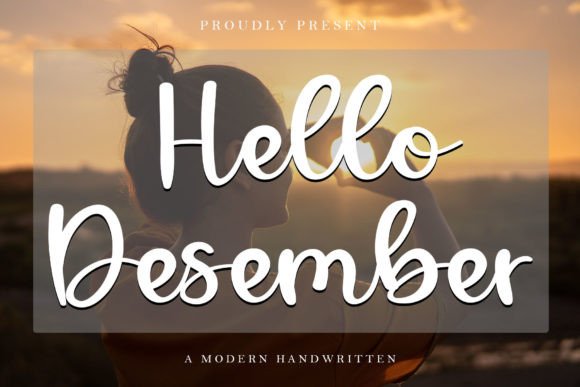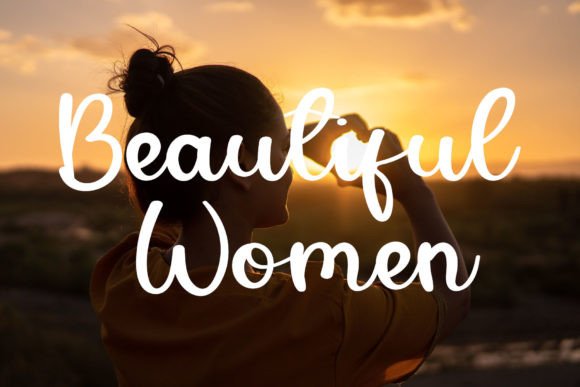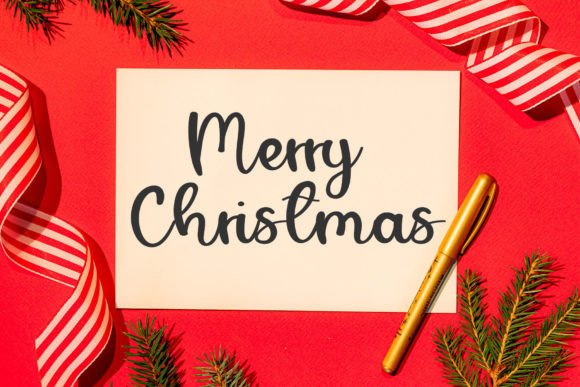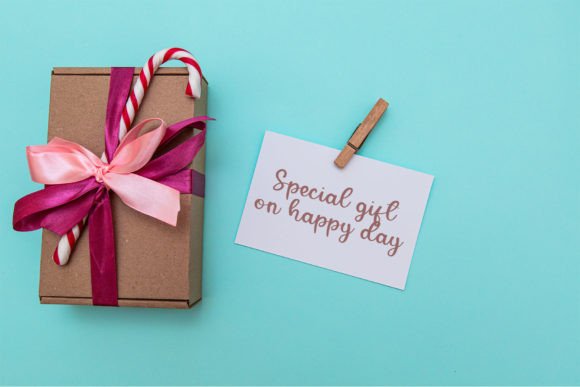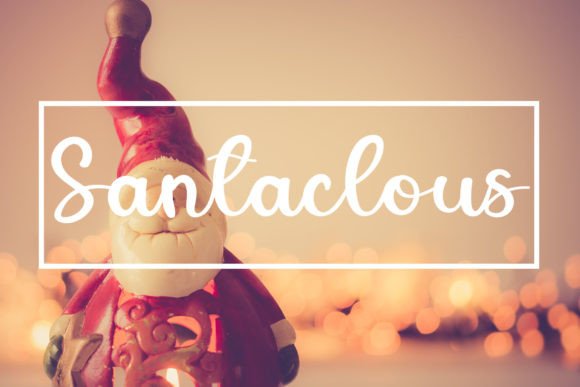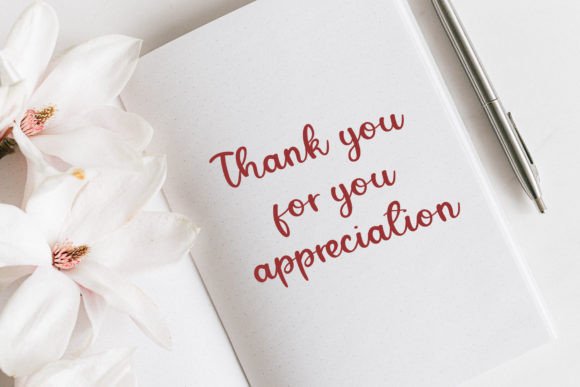
Hello Desember Font
About Hello Desember Font
**Hello December: Where Sweetness Meets Elegance**
**Hello December** is not just a font; it’s a warm embrace of sweetness and elegance, carefully crafted to infuse a touch of luxury into your design projects. With characters that dance along the baseline, this font adds a spark of charm to every creative endeavor.
The essence of **Hello December** lies in its sweetness. The characters, handcrafted with care, exude a delightful charm that captures the spirit of the festive season. Each letter becomes a brushstroke in a canvas of warmth and coziness, creating an atmosphere that resonates with the joy of December.
The dance along the baseline adds a unique flair to the font. It’s not just characters on a screen; it’s a lively rhythm that brings a playful elegance to your designs. Whether you’re working on holiday greetings, festive invitations, or cozy winter-themed projects, **Hello December** becomes a versatile companion.
Luxury is woven into every curve and stroke of this font. It’s not just about letters; it’s about creating an experience. The font becomes a storyteller, conveying a sense of sophistication that elevates your designs to a new level.
As you immerse yourself in the world of **Hello December**, you’ll discover the joy of creating designs that go beyond visuals—they evoke emotions. It’s a font that speaks the language of celebration, and with it, your projects become a festive symphony of elegance and sweetness.
Welcome the spirit of December with open arms and let **Hello December** be your creative guide. Infuse your designs with the magic of the season, where every character becomes a note in a melody of warmth and joy. Create with sweetness, design with elegance—experience the festive spirit with this beautiful font.